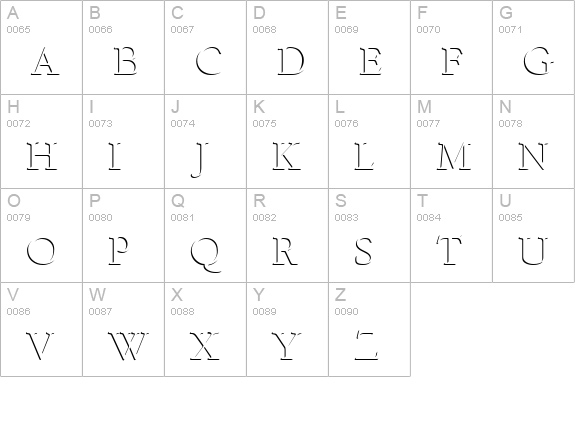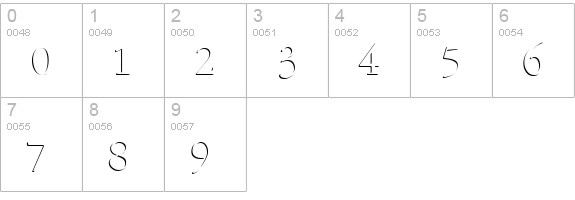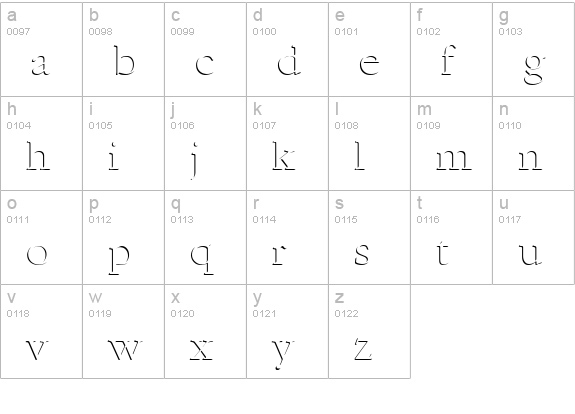
TR Emboss Normal is the standard, neutral variant in the TR typeface family \xE2\x80\x94 well suited to general body text, paragraphs, and standard typographic work.